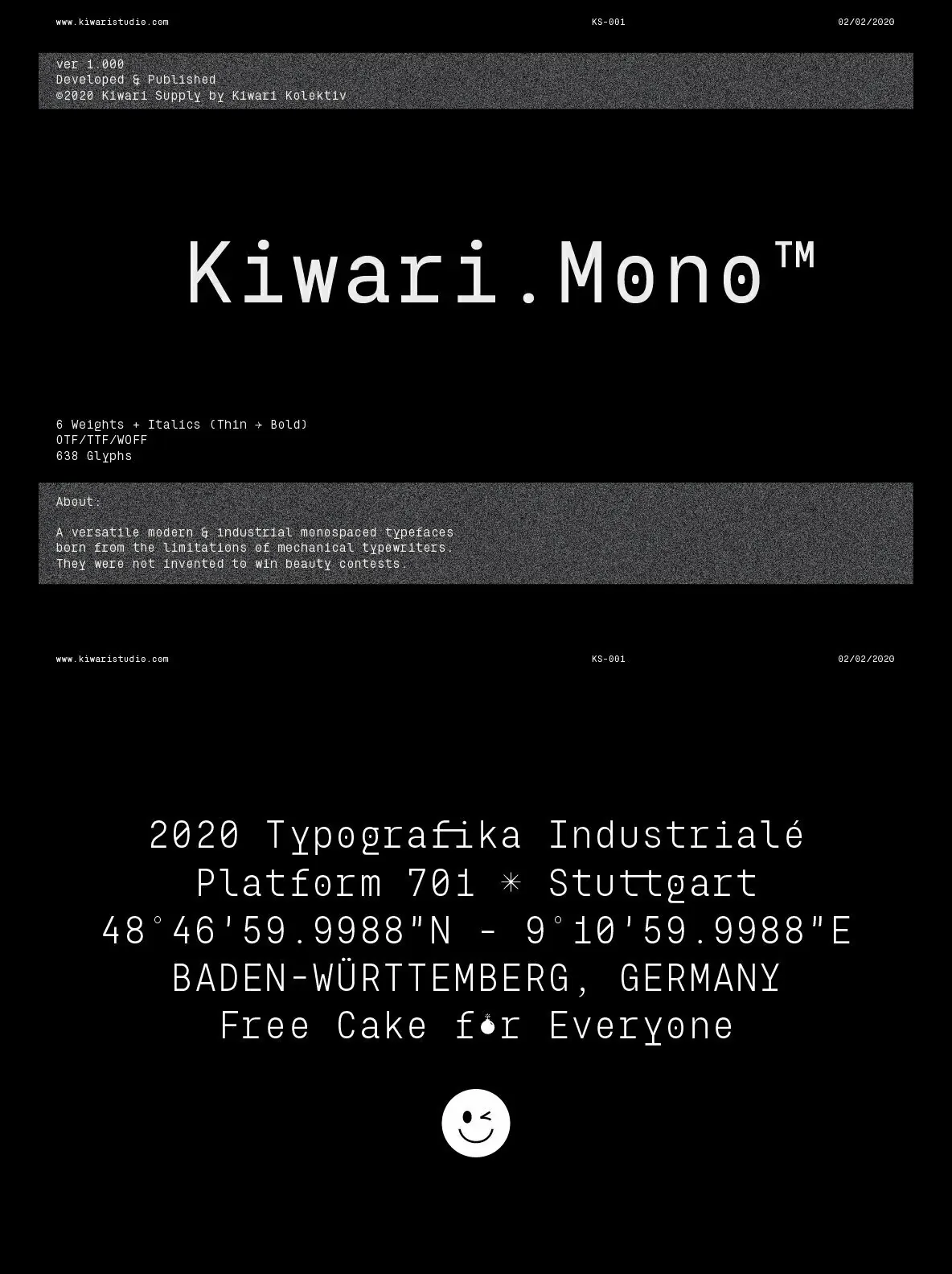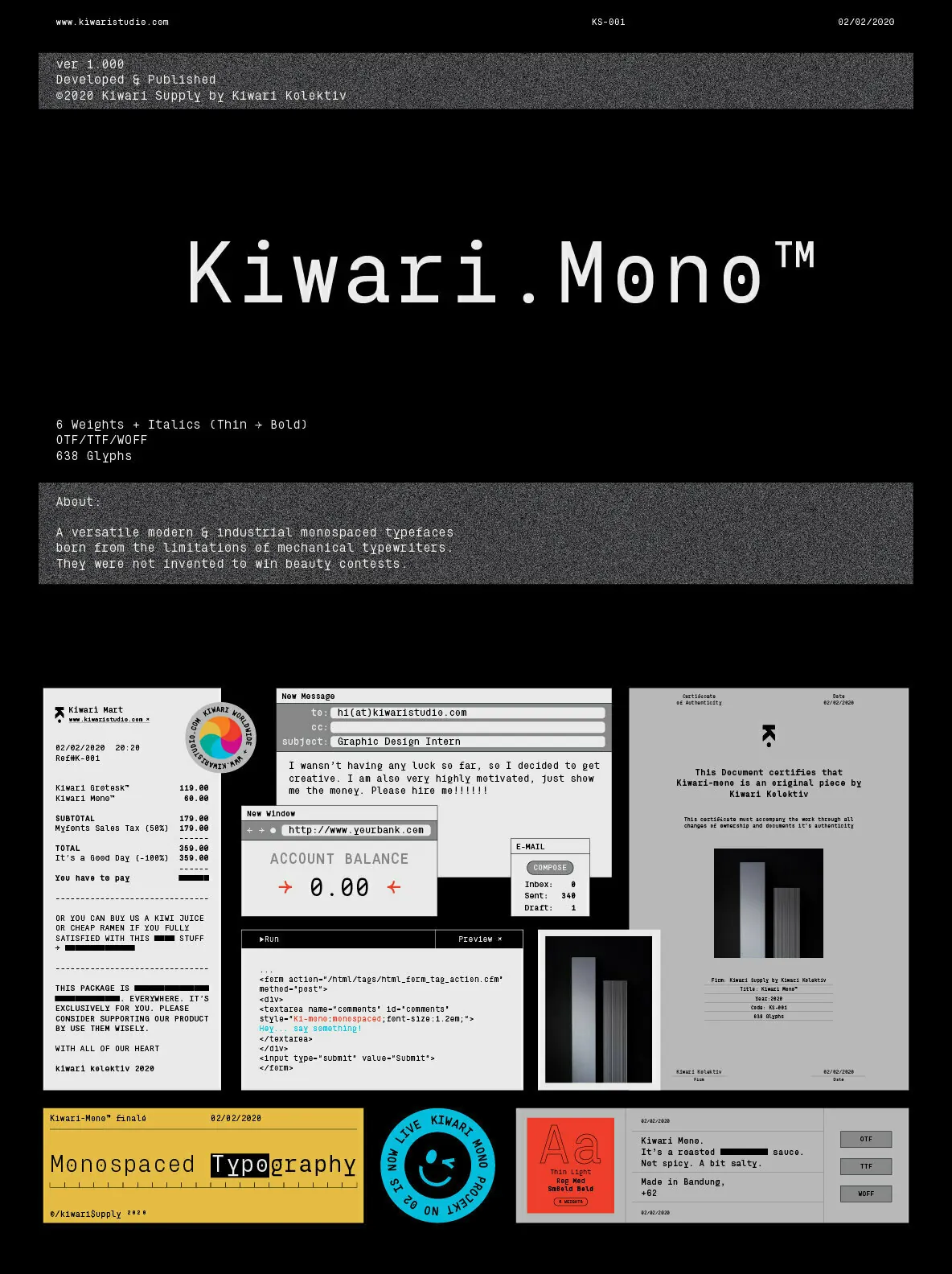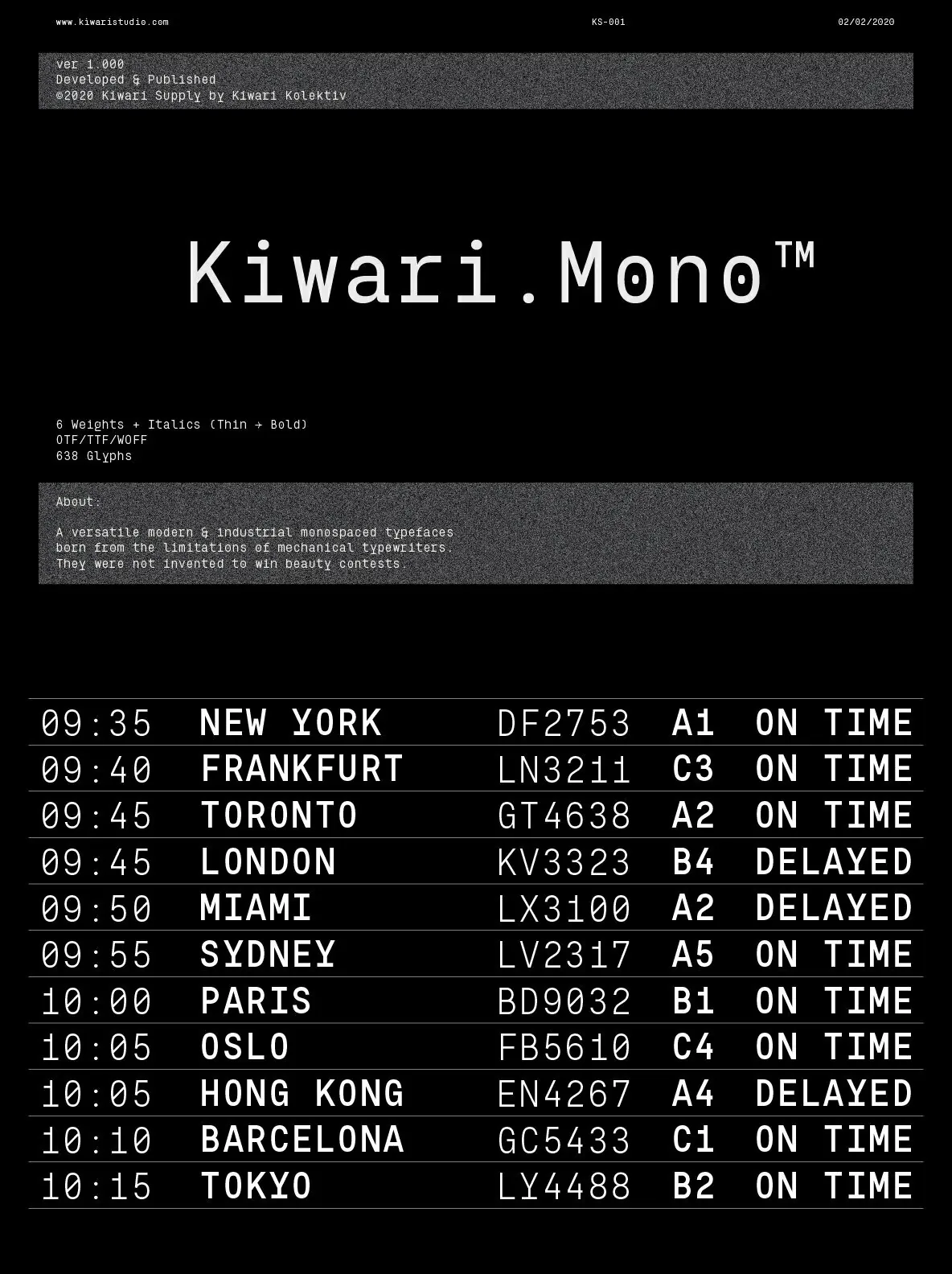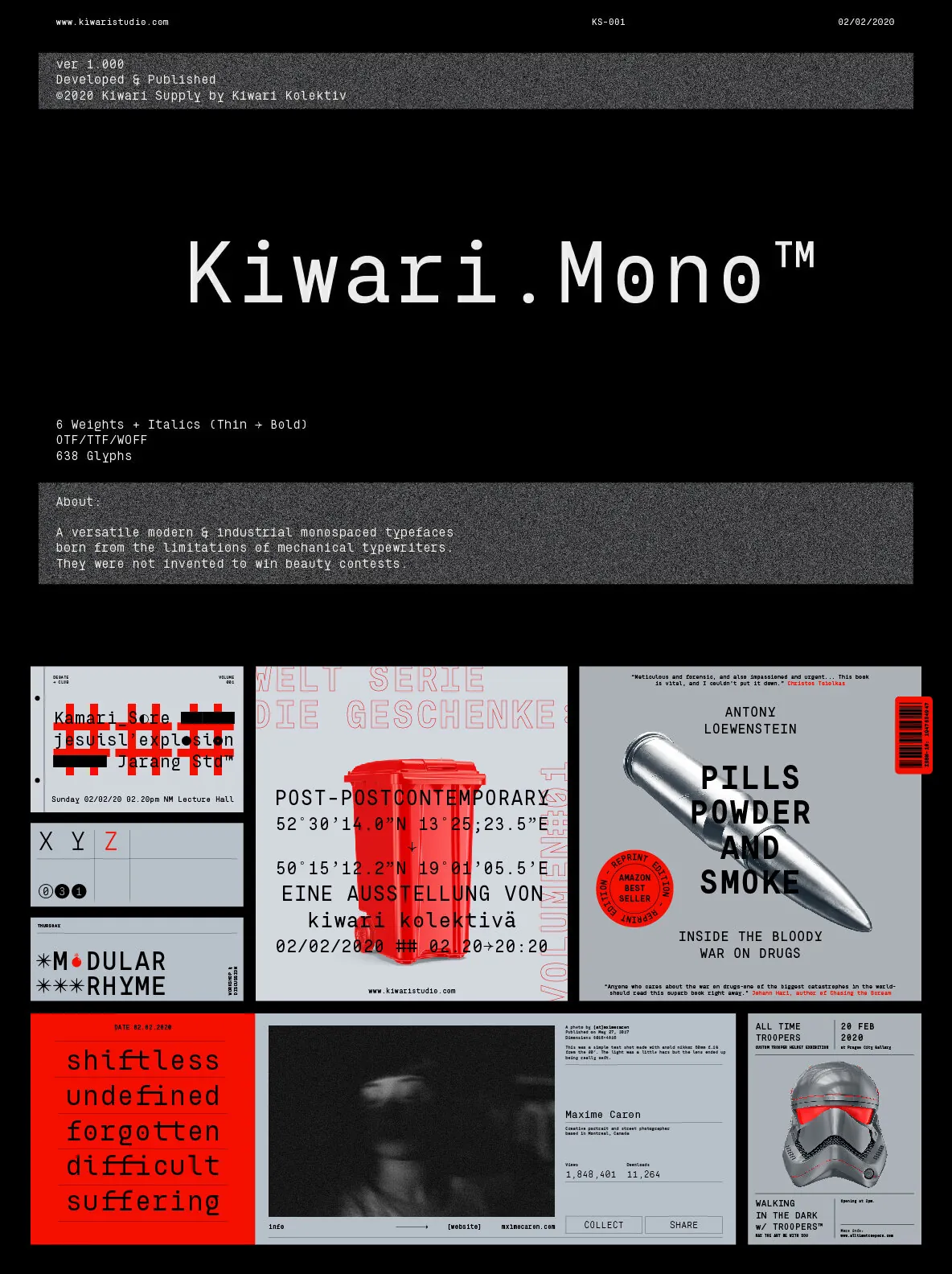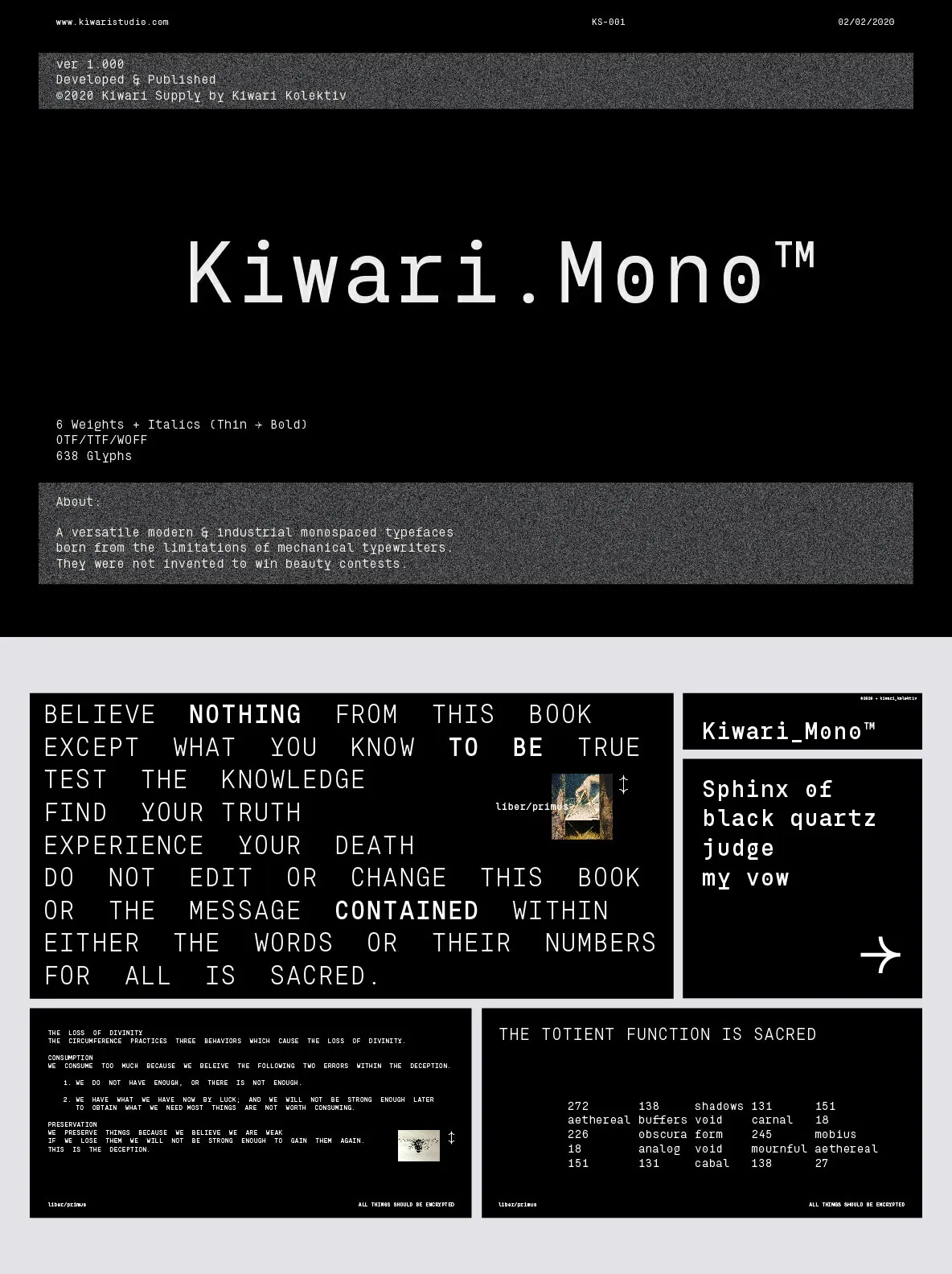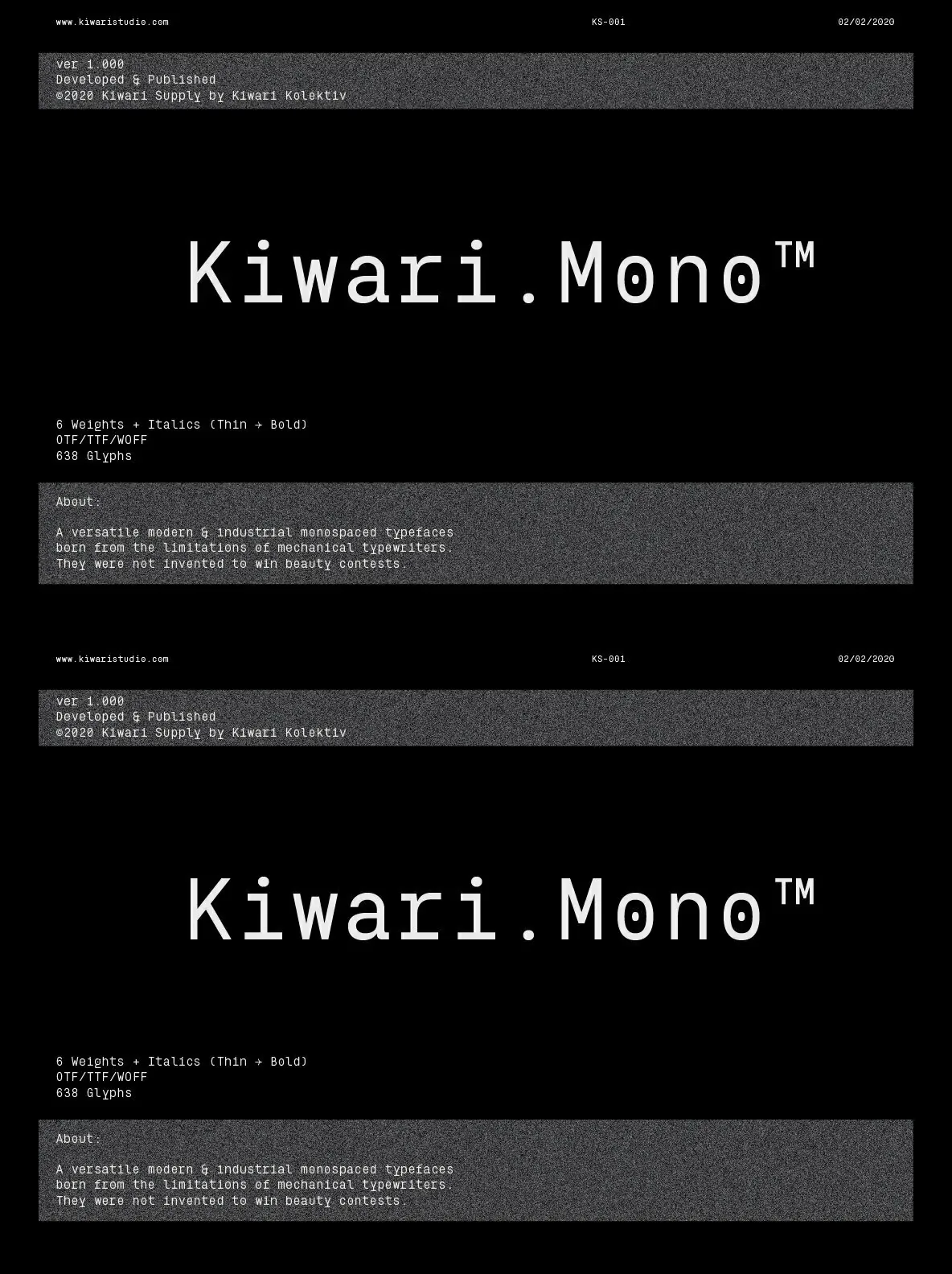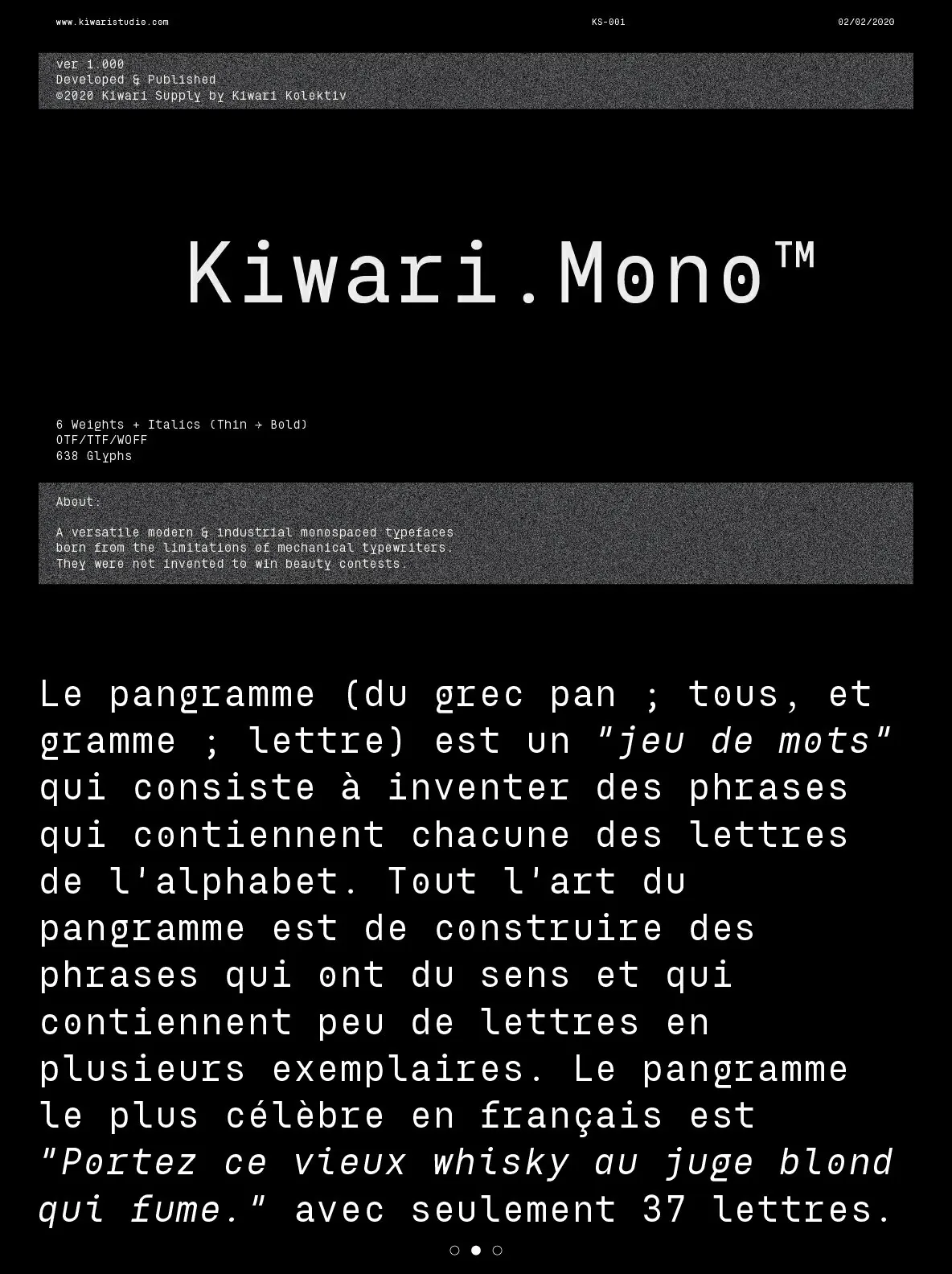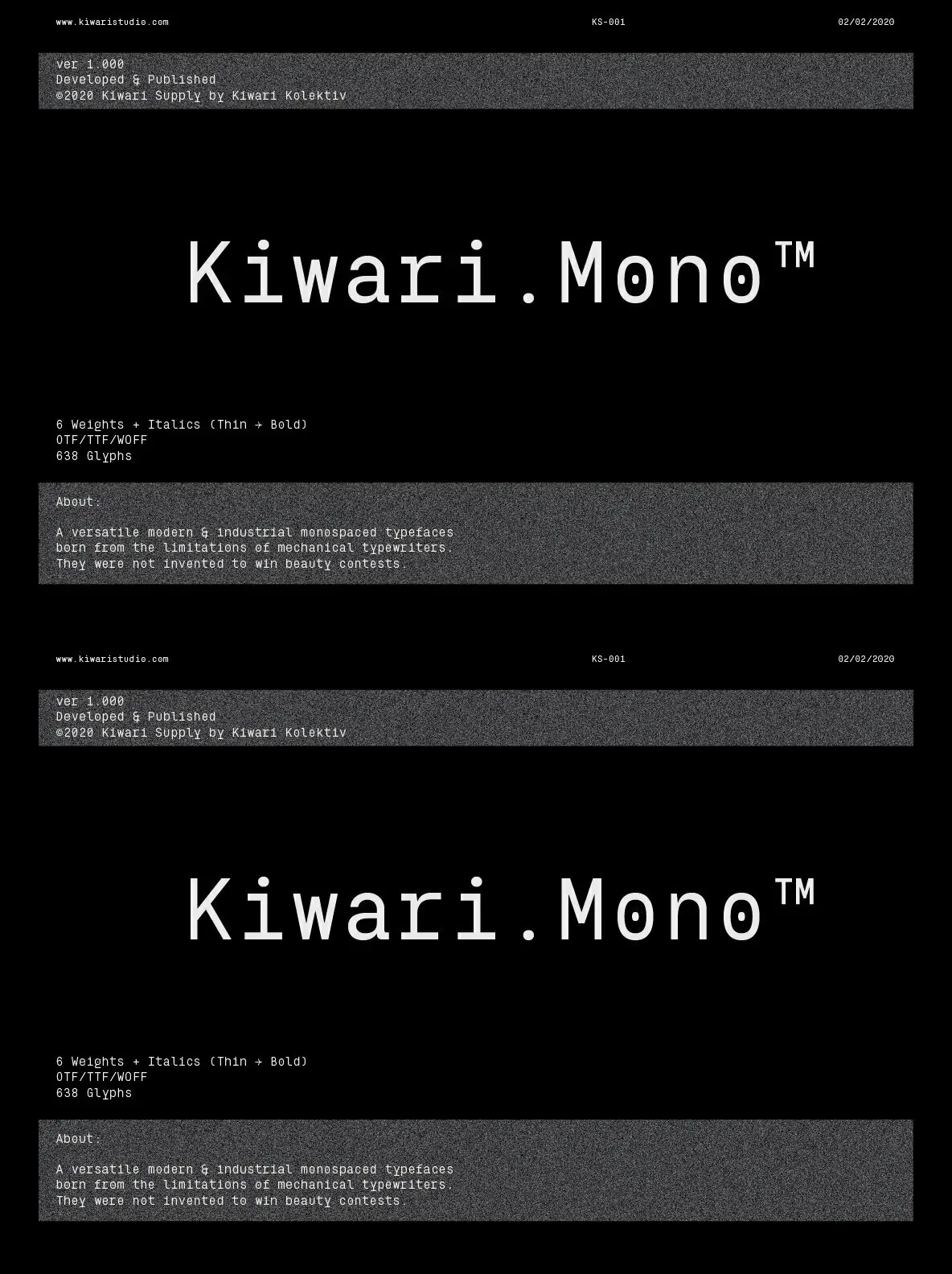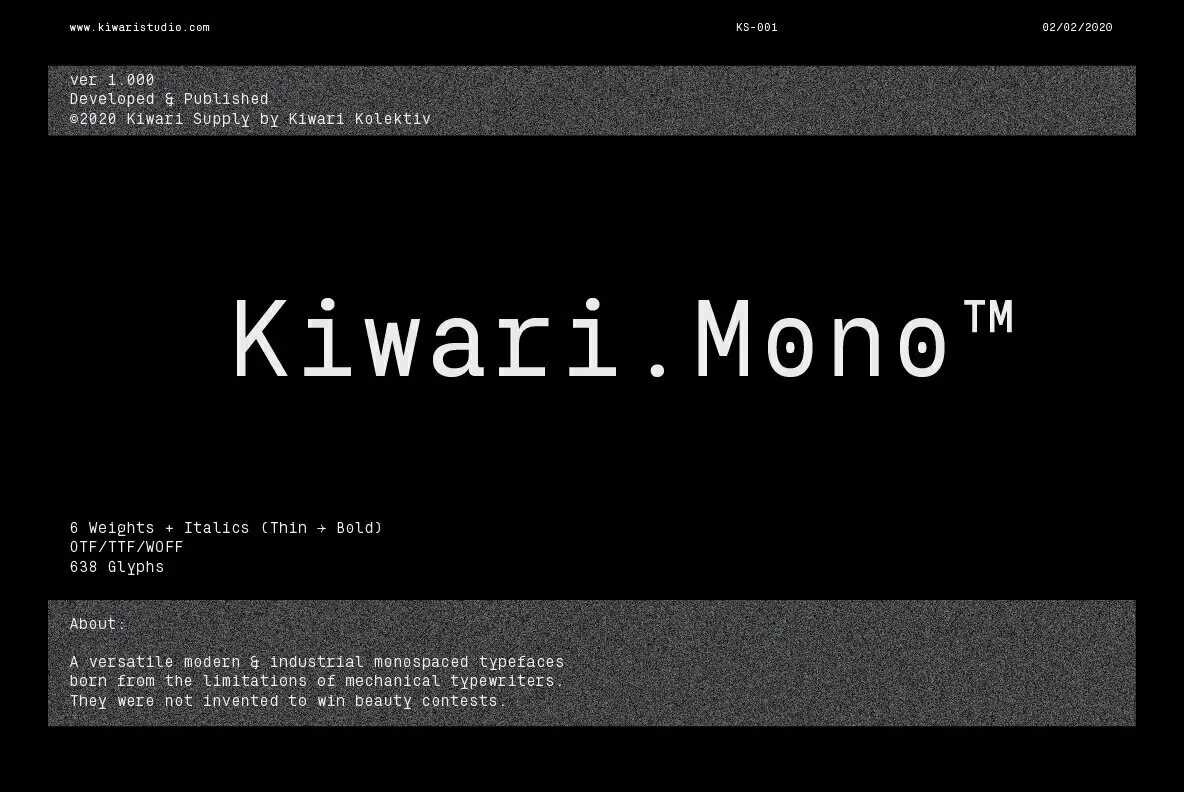
A versatile modern & industrial monospaced typefaces born from the limitations of mechanical typewriters.
Built with 6 weights plus italics and variable. Compared to Kiwari Grotesk, the Mono version evens out not only the characters’ variable widths but also its more subtle characteristics. The type family is equipped for complex, professional typography with OpenType Features like alternate letters, arrows and an extended character set to support most European Languages as well.